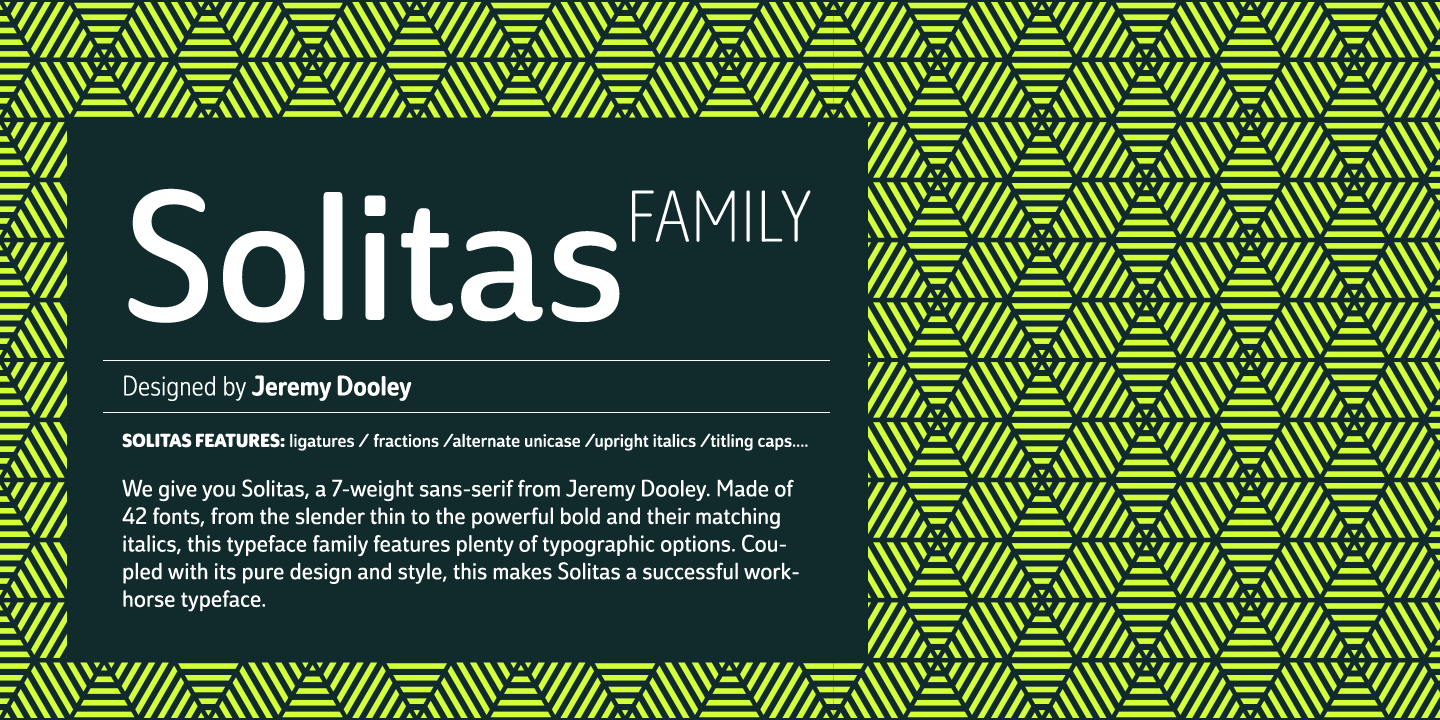
Solitas Font is perfect for luxury brand identity, premium product packaging, high-end fashion catalogs, exclusive event invitations, elegant wedding stationery, sophisticated restaurant menus, upscale hotel branding, jewelry store displays, fine art gallery materials, and exclusive membership communications. This refined typeface brings timeless elegance and exclusivity to any design project requiring sophisticated visual distinction.
Solitas Font is exciting because it embodies the essence of refined solitude and contemplative elegance through its carefully crafted letterforms. The font's distinctive character and sophisticated spacing create an aura of exclusivity and thoughtful design, making it perfect for brands that want to communicate premium quality, refined taste, and distinguished presence to discerning clientele.
Solitas Font family includes multiple weights and styles: Regular, Bold, Light, Medium, Black, Thin, Condensed, Extended, Italic, and Elegant variants. Each style preserves the distinctive sophisticated character while providing comprehensive typographic solutions for luxury branding systems and high-end design applications requiring exceptional visual refinement and exclusivity.
Whether you're designing for luxury brands, premium services, or exclusive events, Solitas Font Free Download delivers the sophisticated elegance that distinguishes exceptional design from ordinary presentation. This distinguished typeface combines classical typography principles with contemporary luxury aesthetics, making it invaluable for projects demanding both visual excellence and premium positioning. The font's refined presence ensures memorable impact in upscale environments.